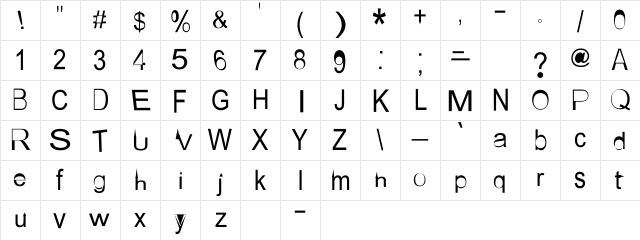
Complete AEZ not your mom's ariel font glyph index. Displaying only characters natively supported by AEZ not your mom's ariel font font.
AEZ not your mom's ariel font is a composed and adaptable typeface that performs quietly and consistently across a wide range of design contexts.